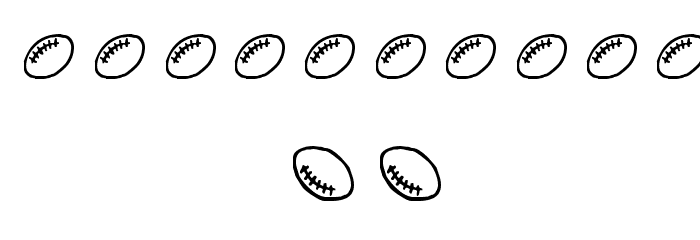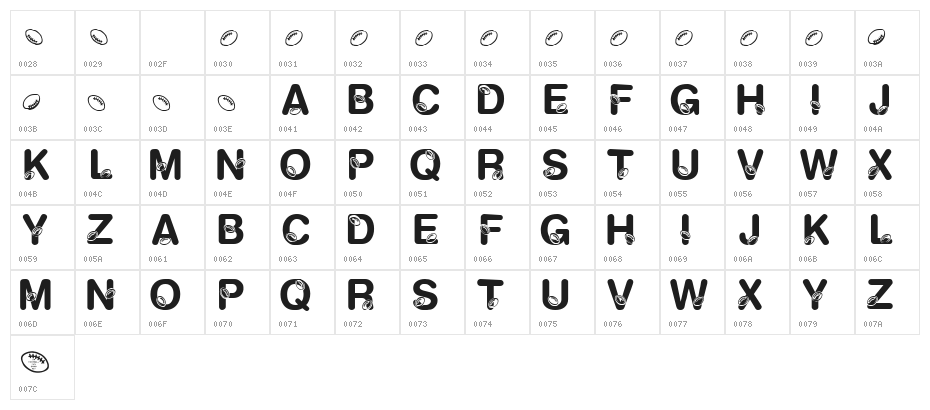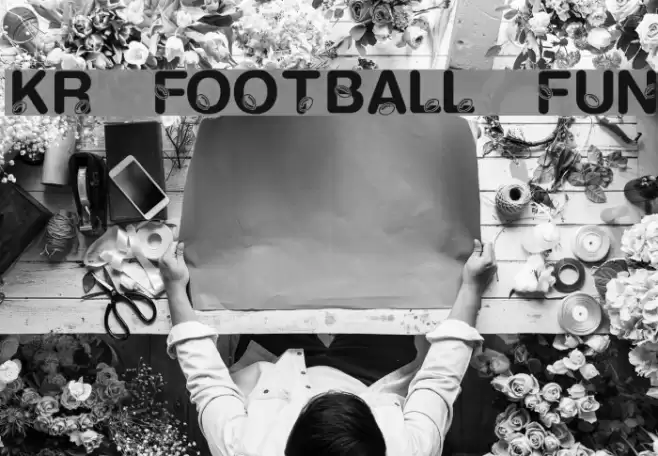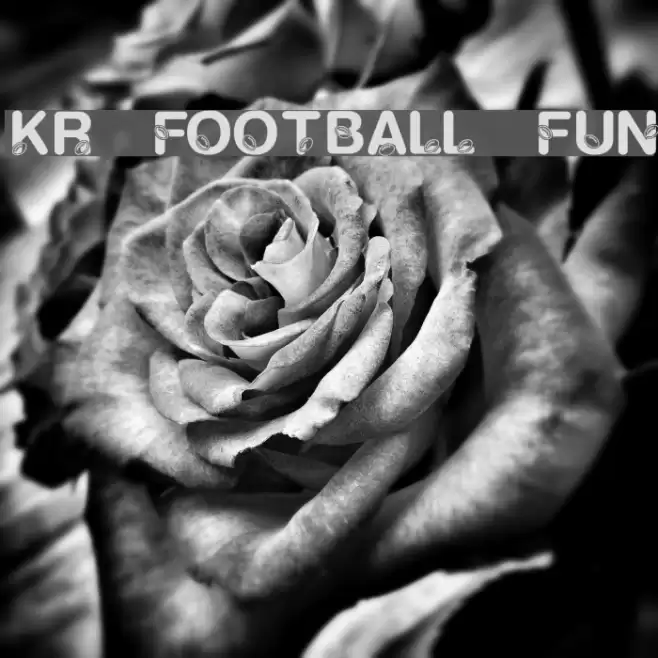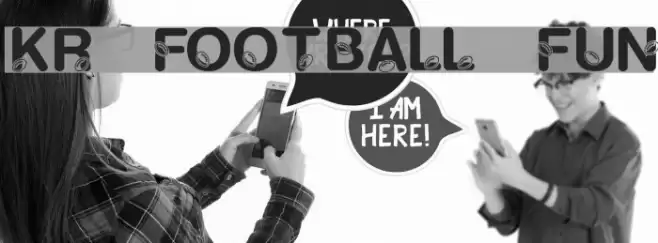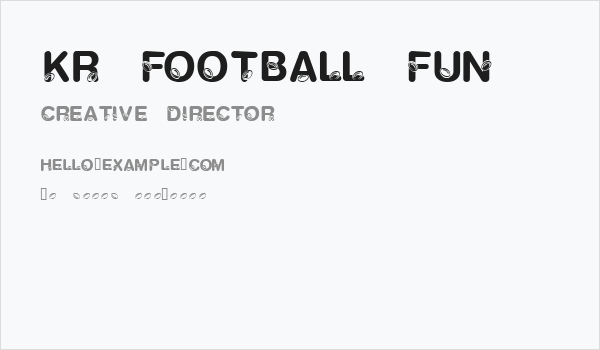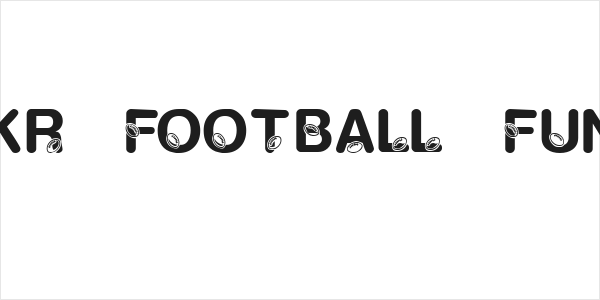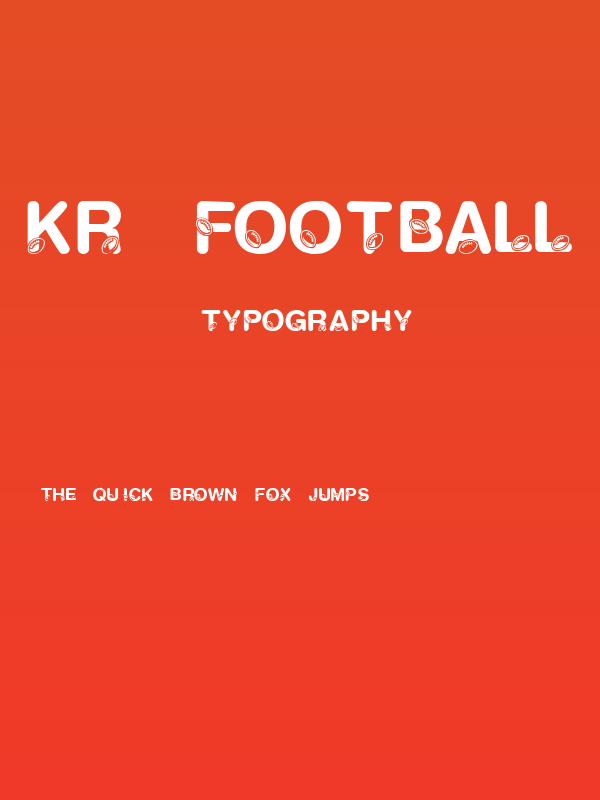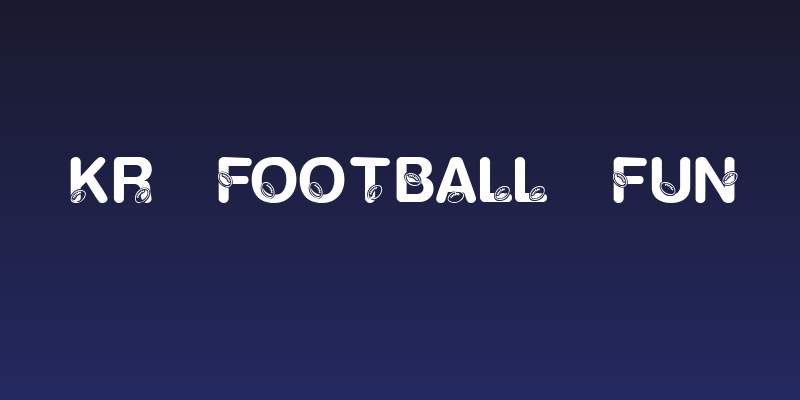
KR Football Fun Font
KR Football Fun Description
This playful and bold display font features uppercase letters adorned with small football graphics, adding a whimsical and sporty touch to each character. The letters are thick and rounded, providing a strong visual impact. The footballs are strategically placed to enhance the playful theme without overwhelming the letterforms. This font is perfect for projects that require a fun and energetic vibe, particularly those related to sports, games, or children's activities. Its unique design makes it stand out, ensuring that any text using this font will capture attention and convey a sense of excitement and playfulness.
| Overall Style | Playful, Sporty |
| Proposed Projects | Ideal for sports-themed posters, children's book covers, playful branding, and event invitations. |